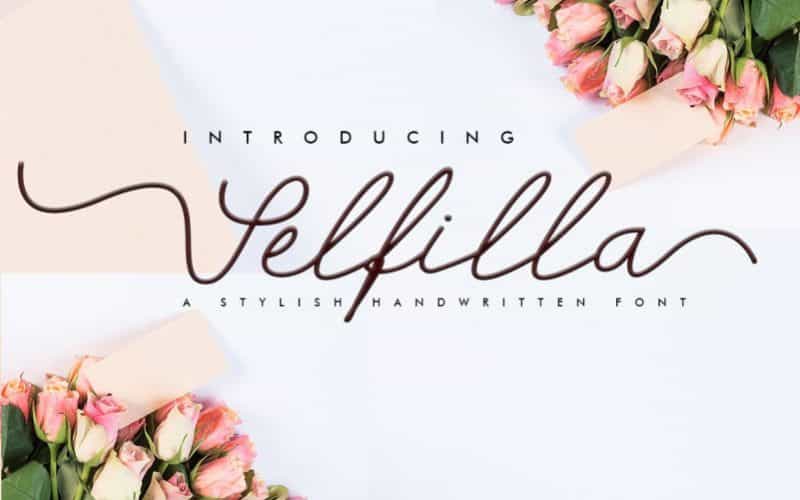
Introducing: Selfilla is a beautiful font based handwriting inspired. This font looks natural, fancy and perfect for any projects or branding, including opentype feature ( calt, salt, signature, swash ).